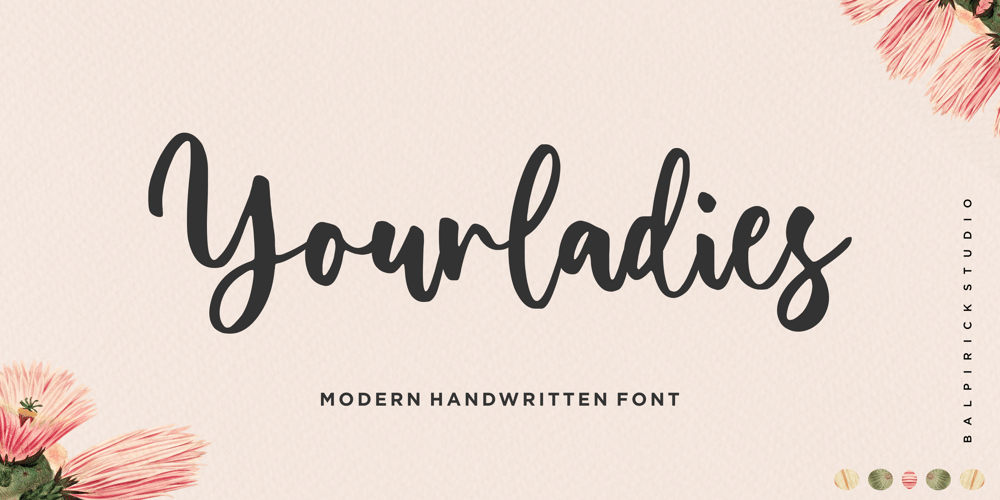
Yourladies Font Family was designed by Restu Angga and published by Balpirick. Yourladies contains 1 styles and family package options. Yourladies is a Modern Handwritten Font.Yourladies is a sweet and delicate handwritten font. Dainty and joyful, this font will be ideal for writing wedding invitations, cards or any other design that may need a romantic, personalized touch!Yourladies also multilingual support.Enjoy the font, feel free to comment or feedback, send me PM or email.Thank you!